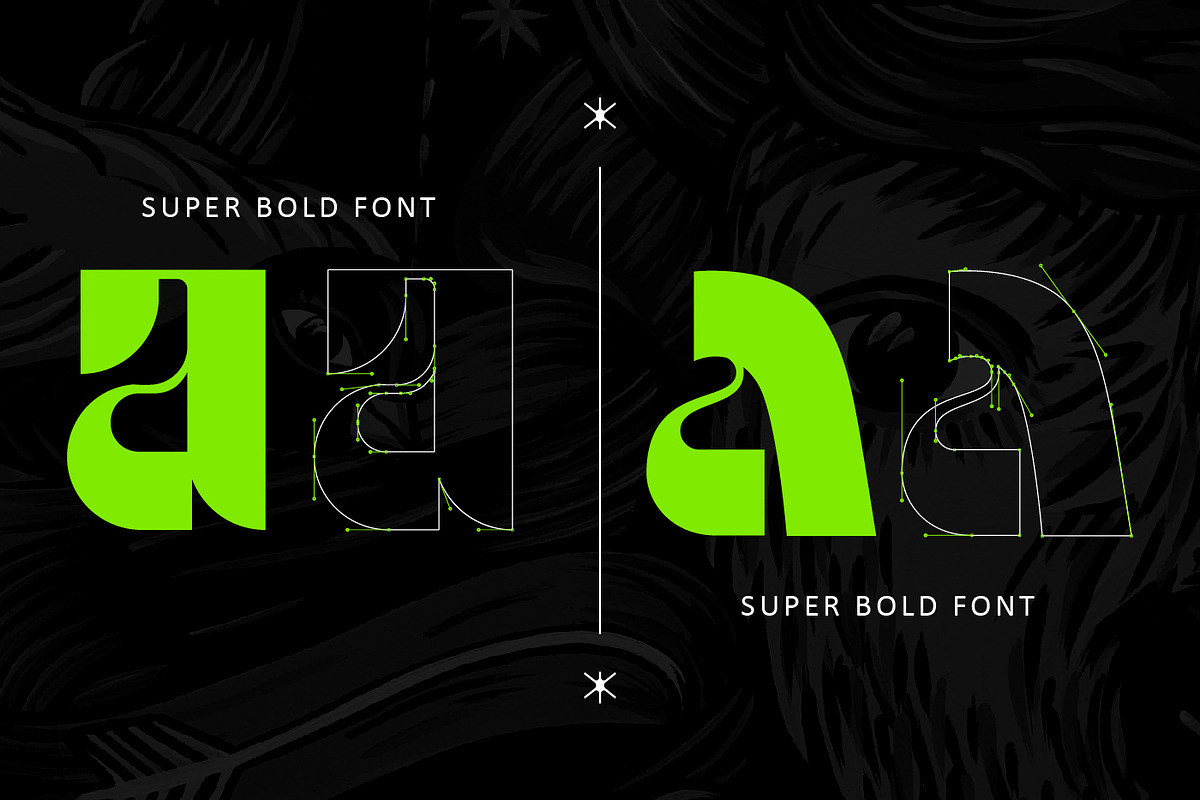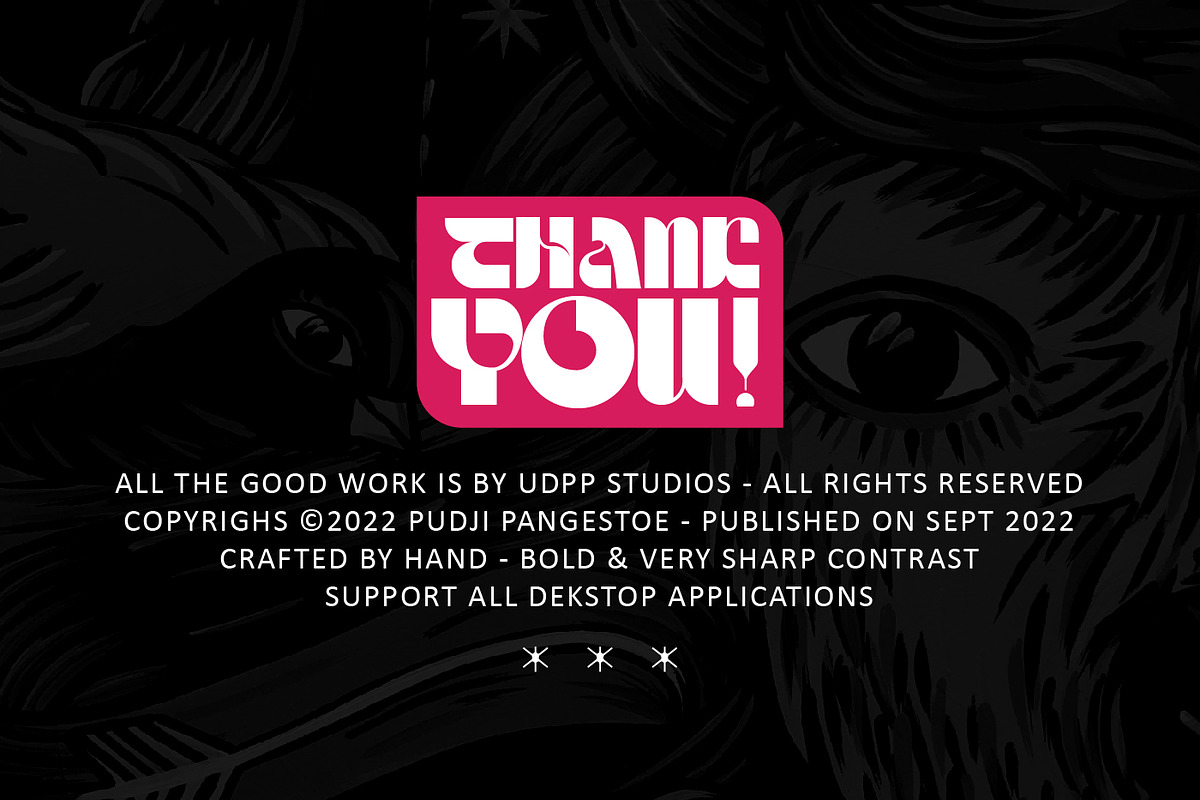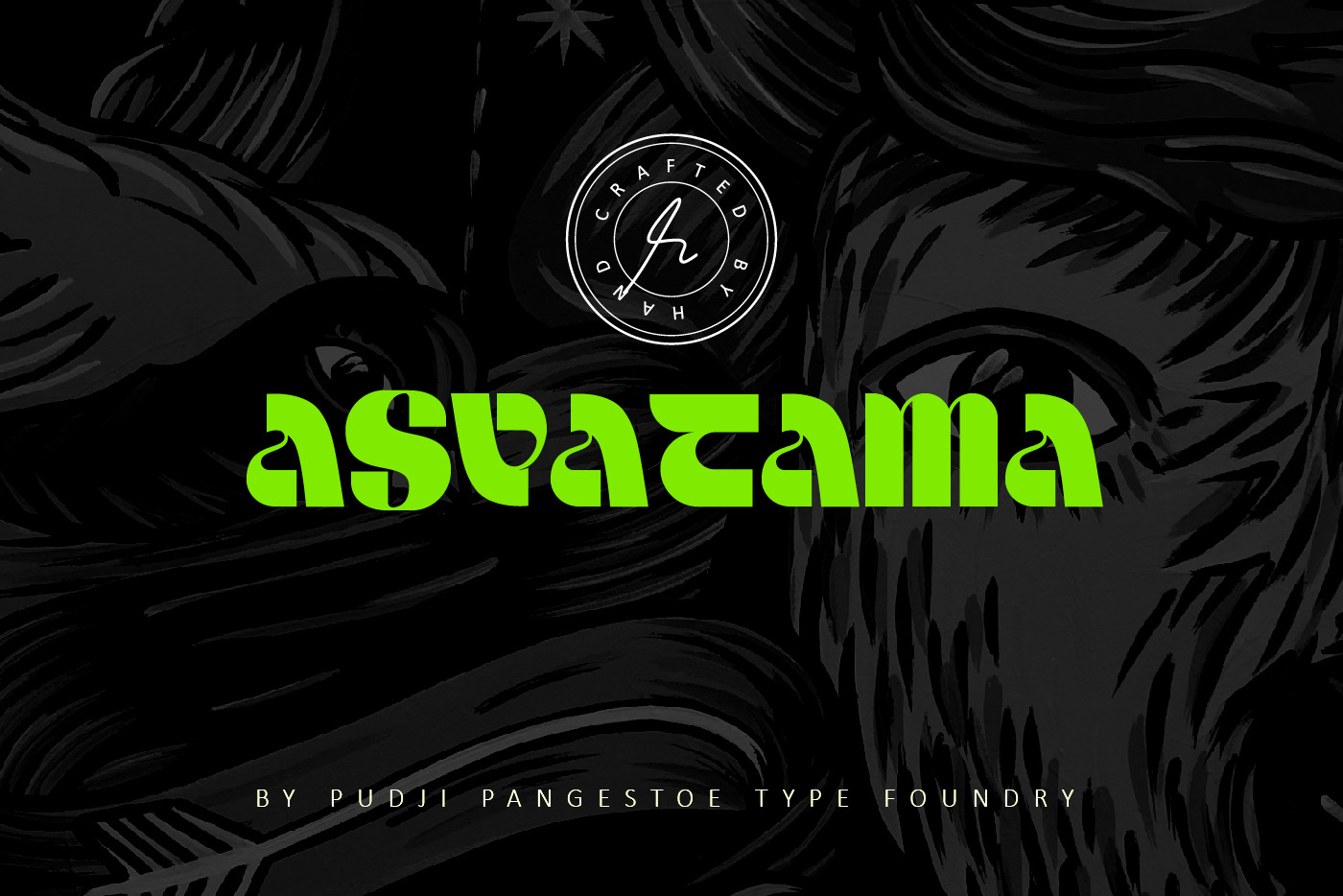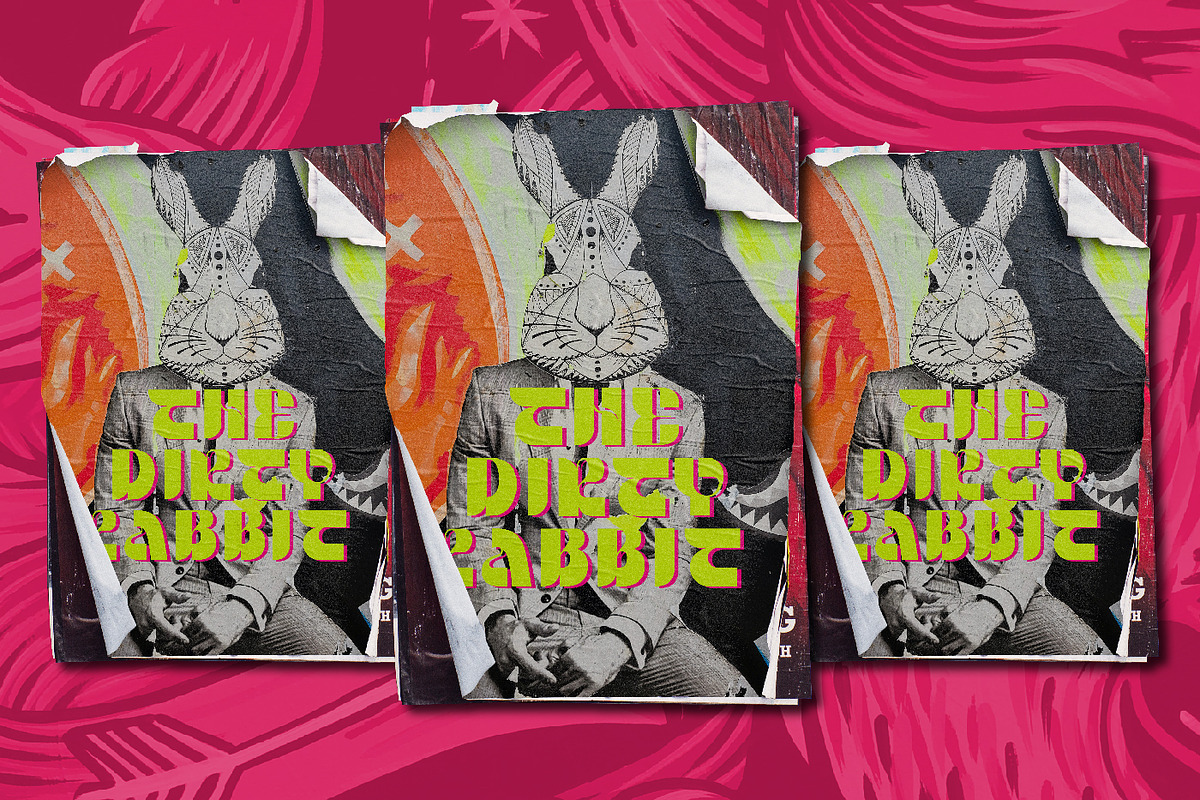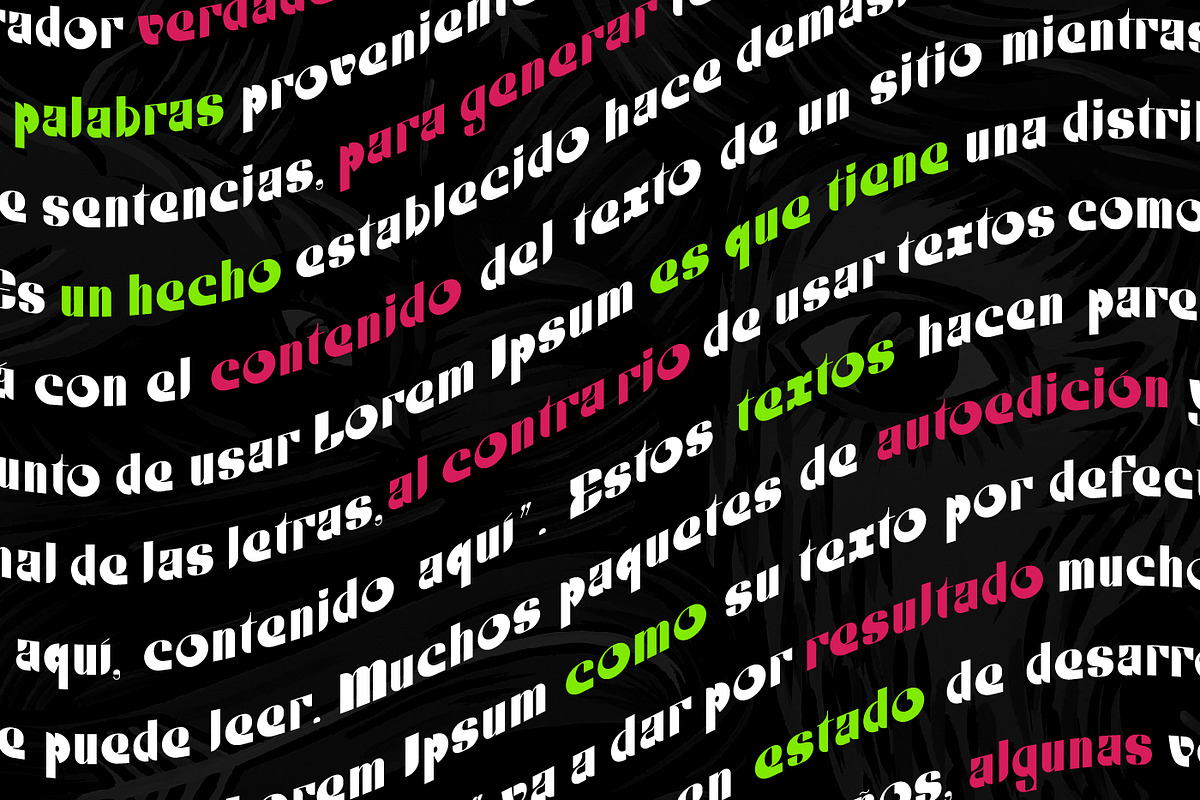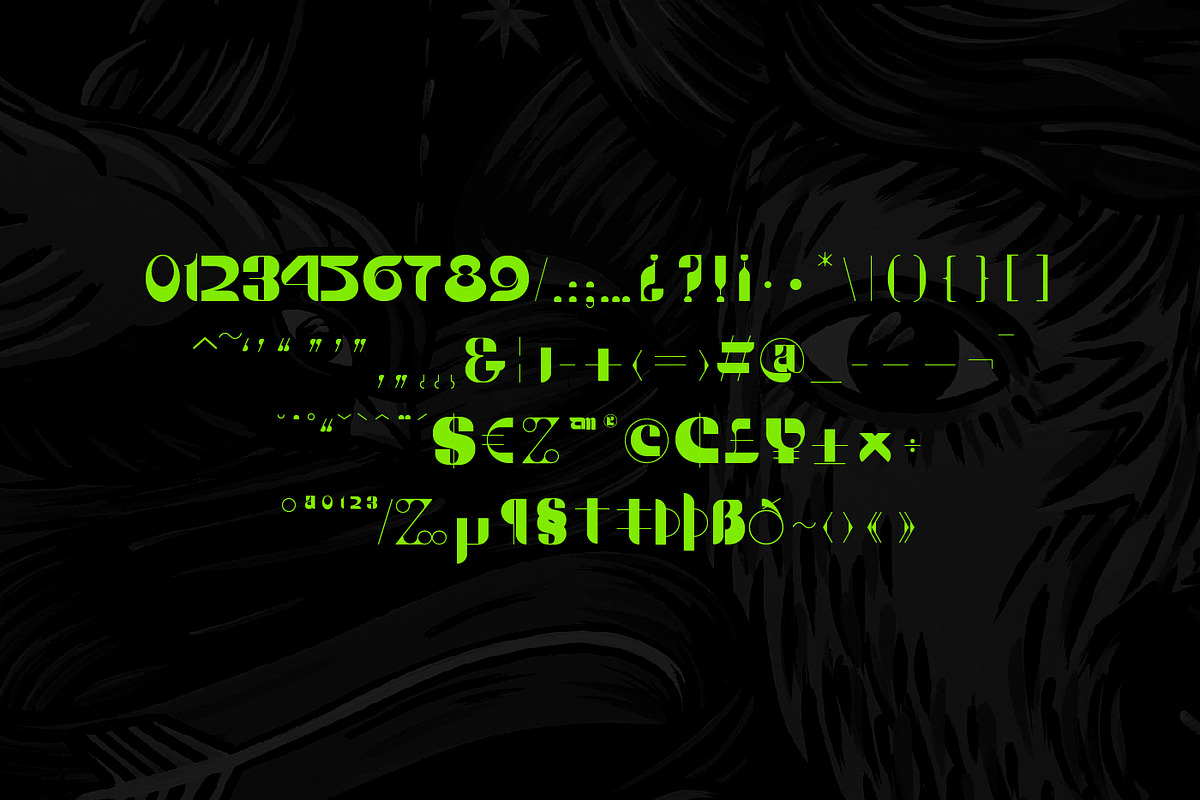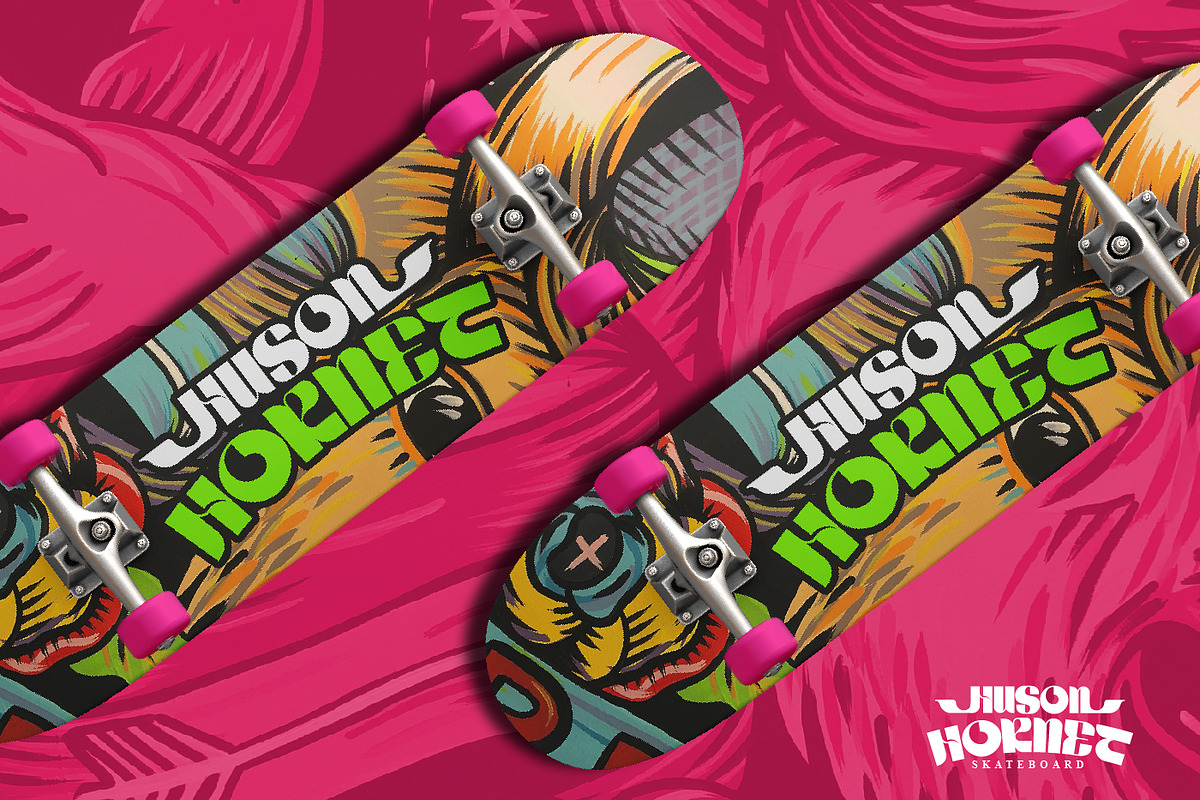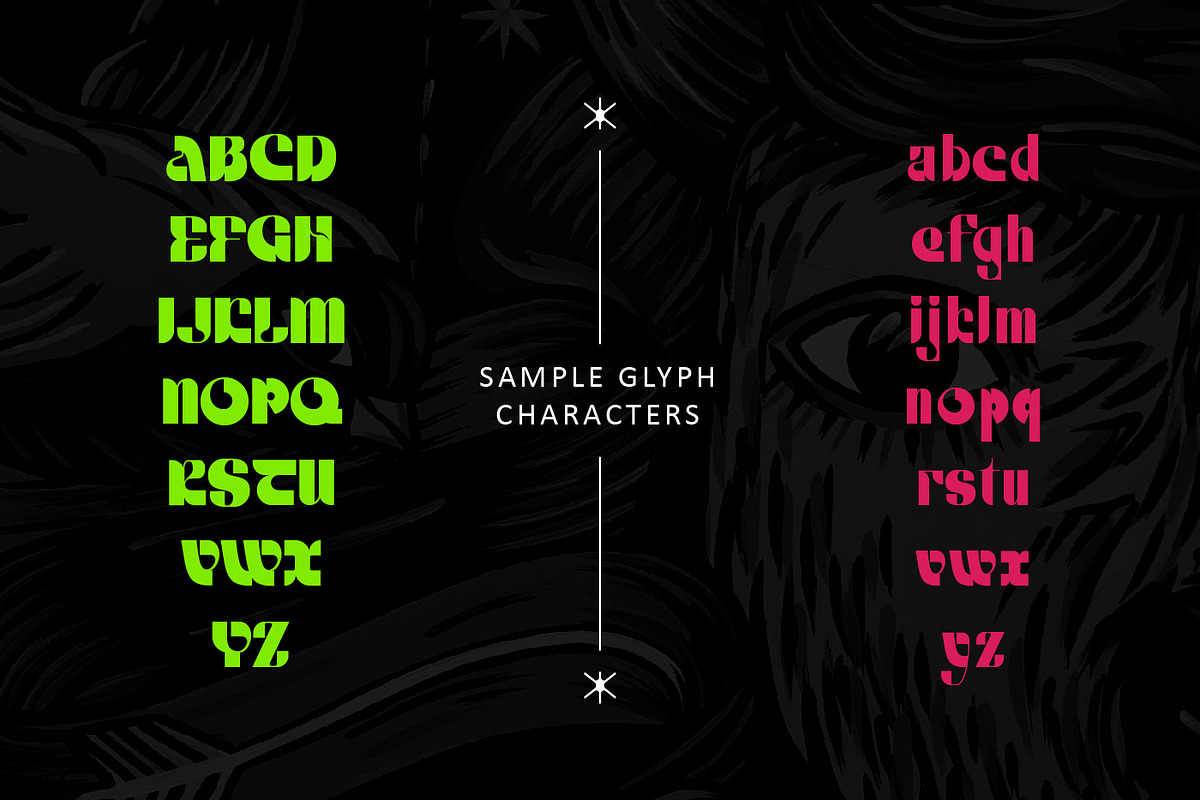
Asvatama Display Typeface
ASVATAMA is a Custom Font that's well-produced by hand and generated into a pure form, which will be best when used in any placement like logo, poster, t-shirts, or any display.
Build manually by hand, and reform into a clean Typeface. Natural stroke from original hand-lettering. It can be used for just Titles or even writing.